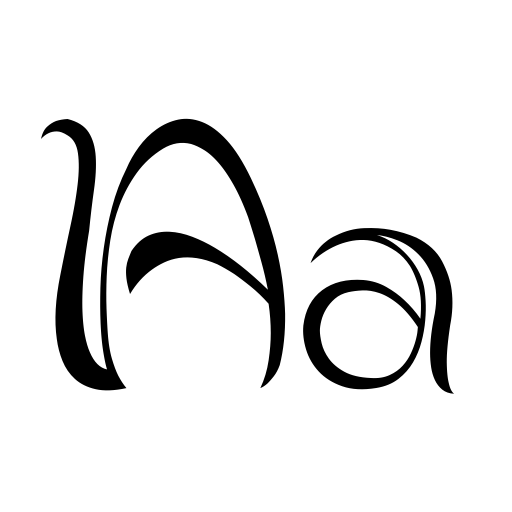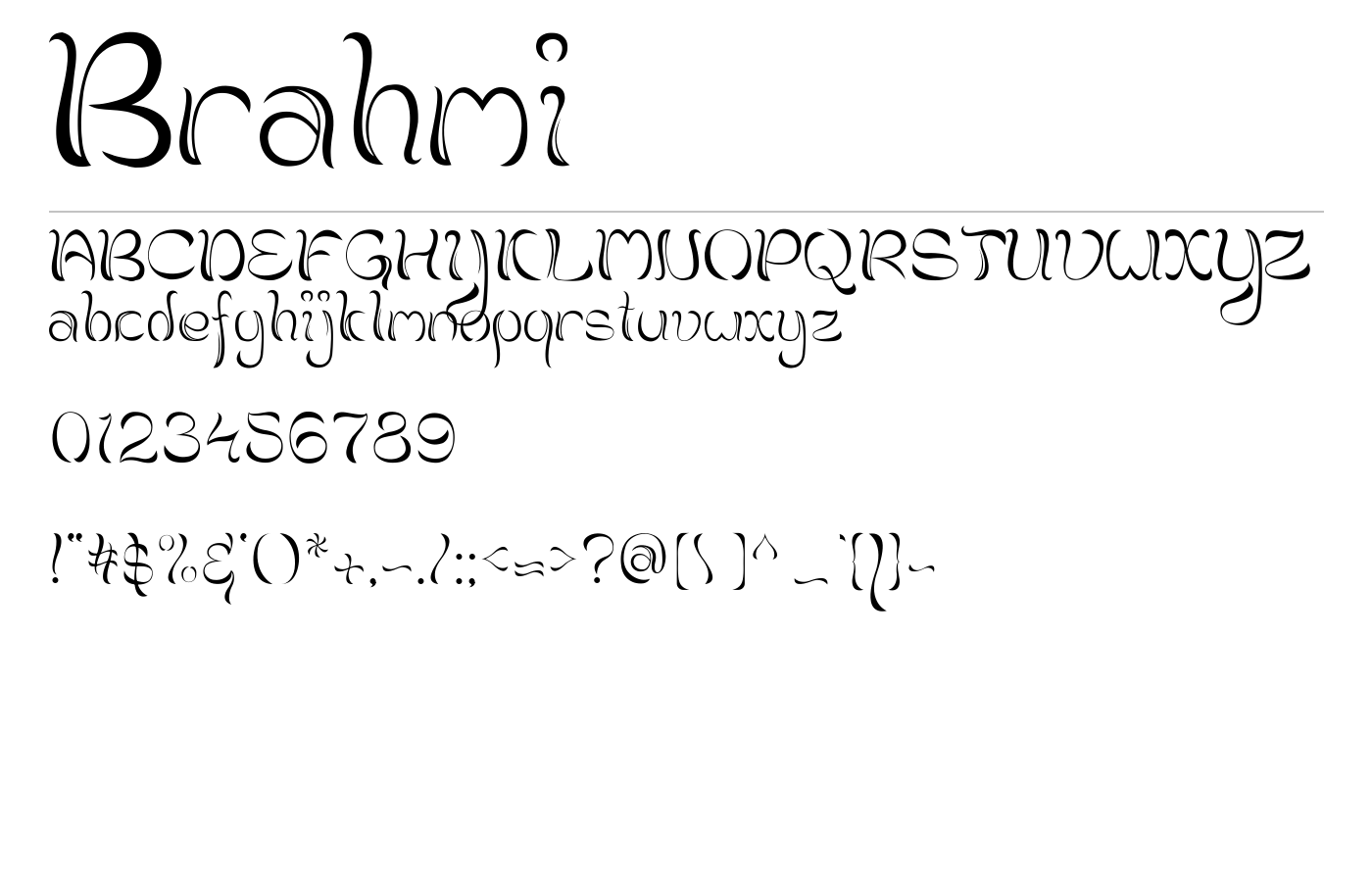
Brahmi is a distinctive serif font with elegant, flowing curves and high contrast between its thick and thin strokes, giving it a graceful and artistic feel. Its unique letterforms, featuring slender, calligraphic details and a slightly whimsical style, make it perfect for decorative uses such as logos, fashion branding, or creative headlines where a sophisticated yet playful touch is desired. This font stands out with its stylish personality, lending an exotic and refined mood to any design.
Brahmi Font
About Brahmi Font